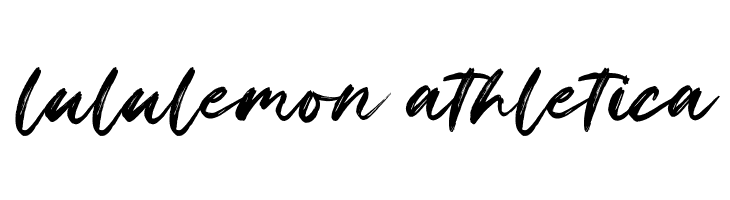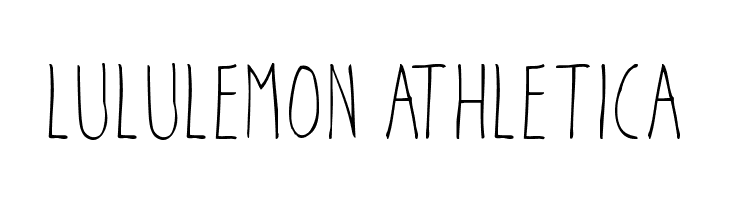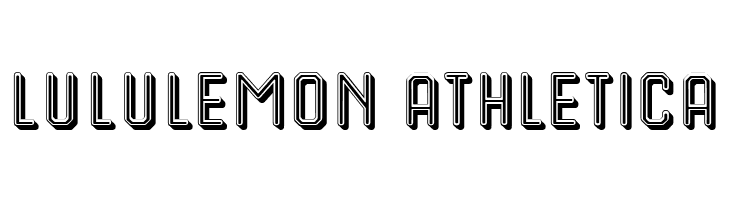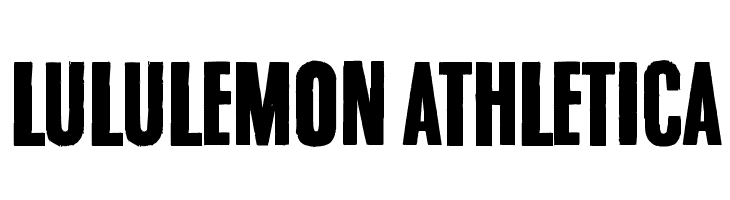
A bold, jagged font with a woodcut-inspired, energetic style.
A playful, handwritten font with tall, narrow letters and a light, airy appearance.
A distressed, hand-drawn font with a grunge, textured style.
A bold, geometric font with a three-dimensional, retro-inspired design.
A bold, distressed font with a vintage, rugged appearance.
A whimsical collection of detailed, fantasy-themed pictograms.
A playful handwritten font with heart motifs and decorative elements.
A bold, expressive brush script font with dynamic, fluid strokes.